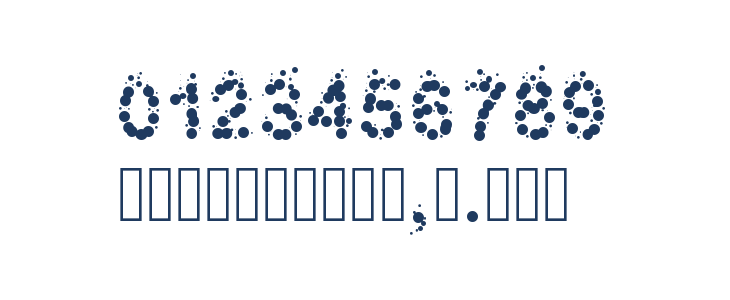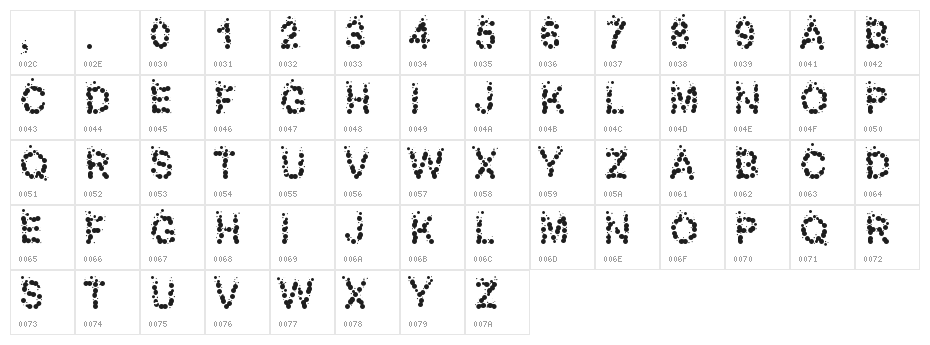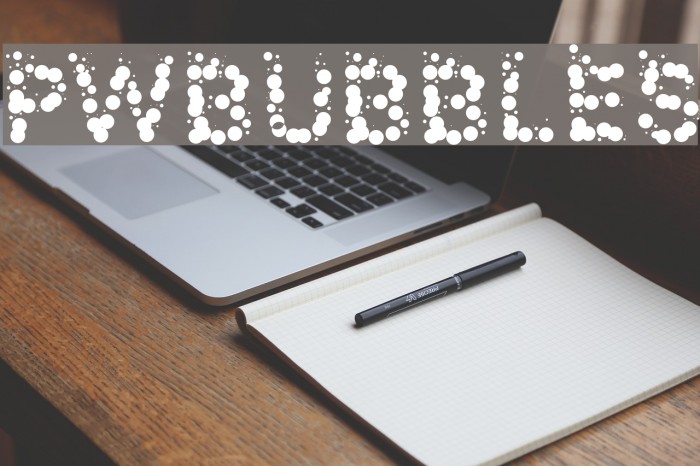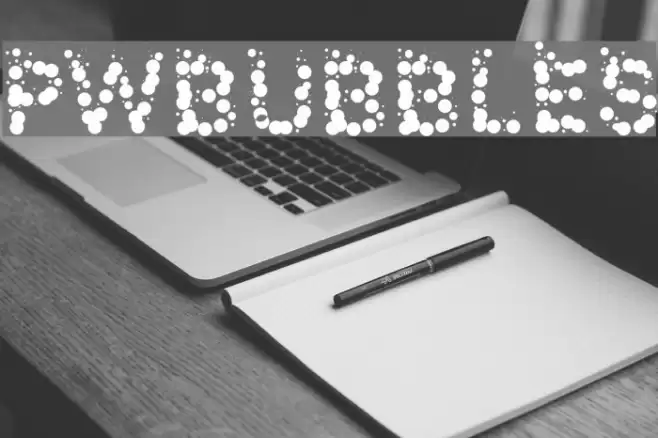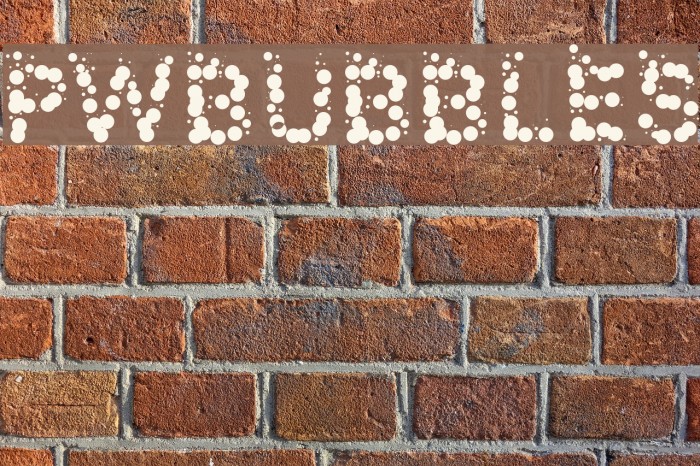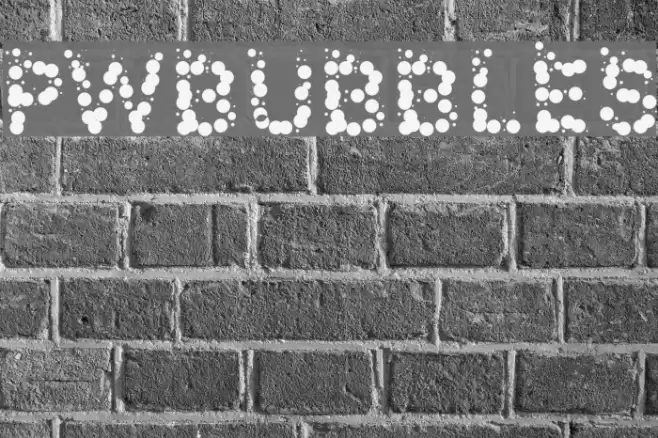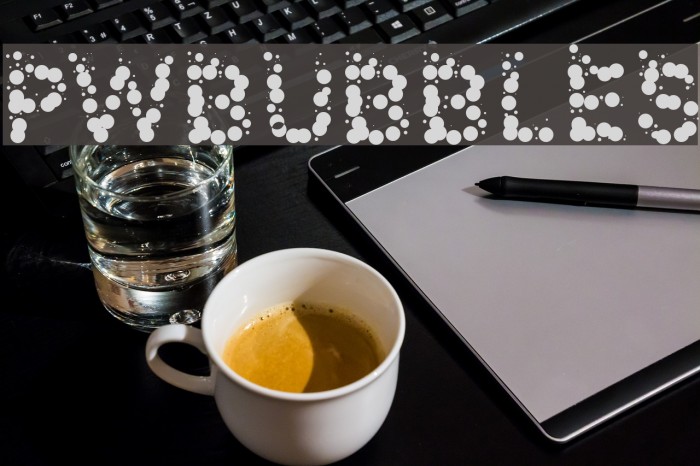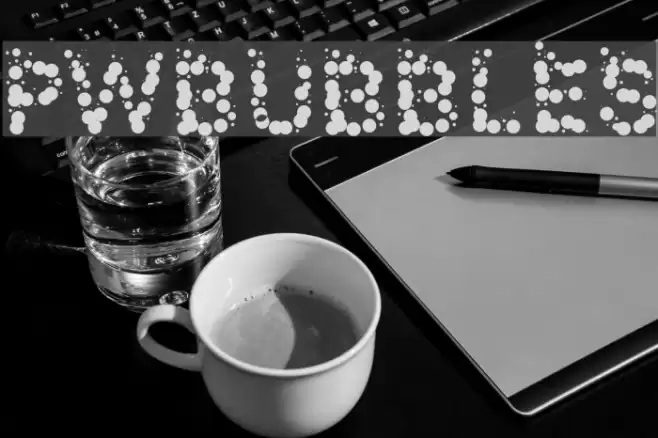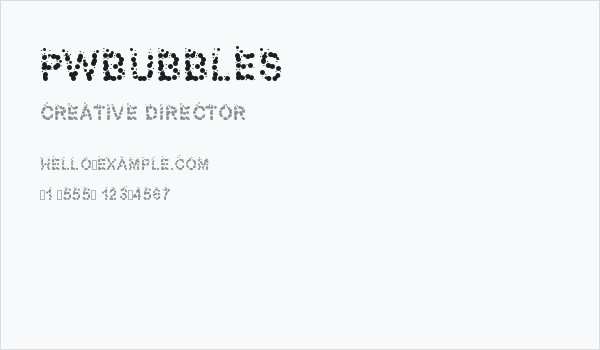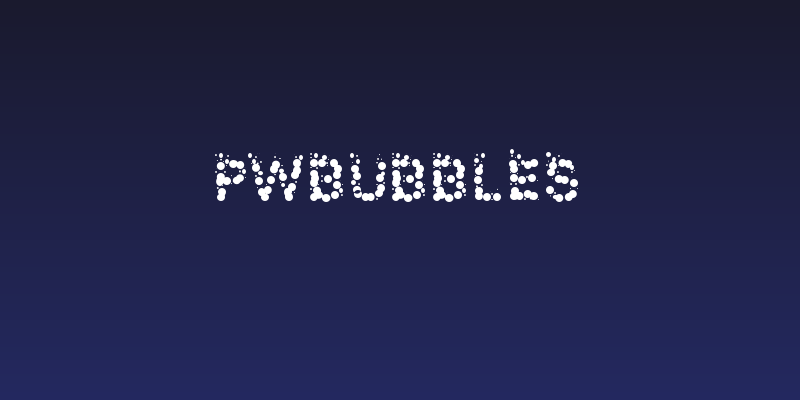
PWBubbles Font
PWBubbles Description
This playful and unique font features characters composed of variously sized circles, creating a bubbly and dynamic appearance. The design is reminiscent of bubbles or droplets, giving it a whimsical and light-hearted feel. Each letter and number is formed by an arrangement of these circular shapes, which vary in size to suggest the outline of traditional characters. The font maintains a consistent style across uppercase, lowercase, and numerical characters, ensuring a cohesive look. Its distinctive design makes it stand out, ideal for projects that require a fun and engaging visual element. The spacing between characters is relatively normal, allowing for readability while maintaining its decorative nature.